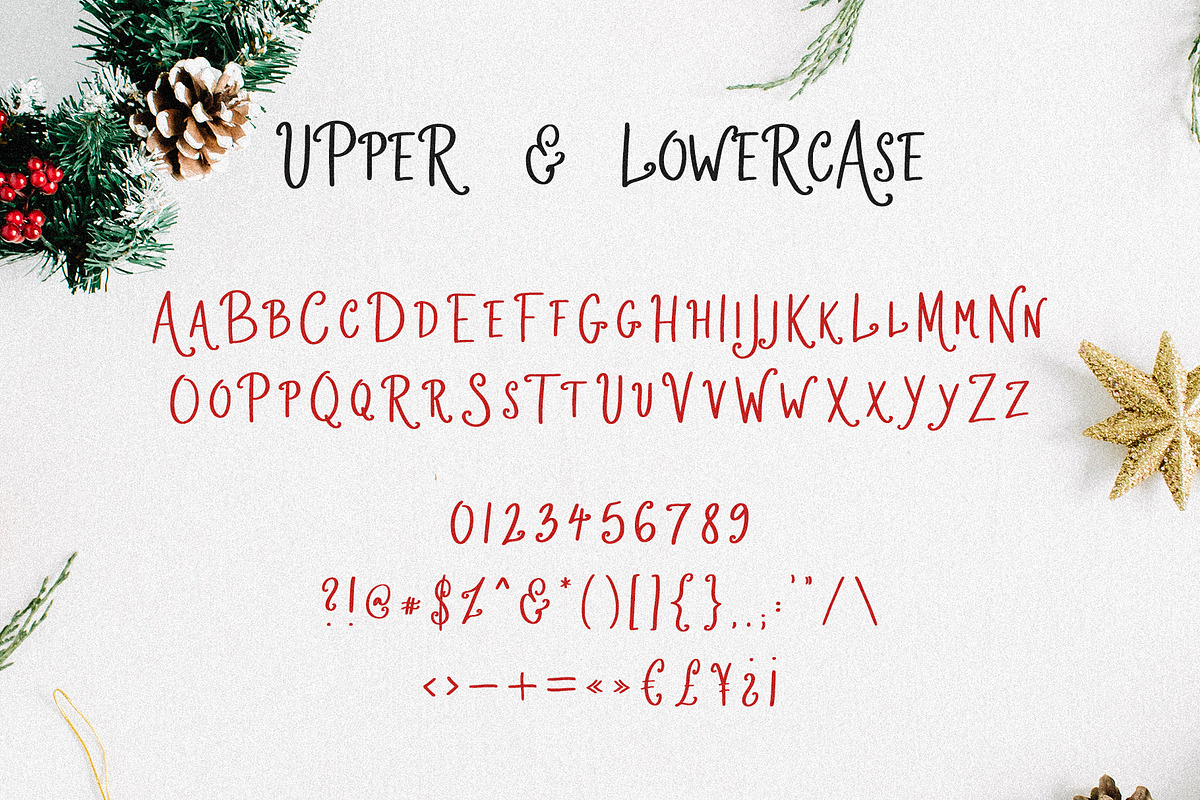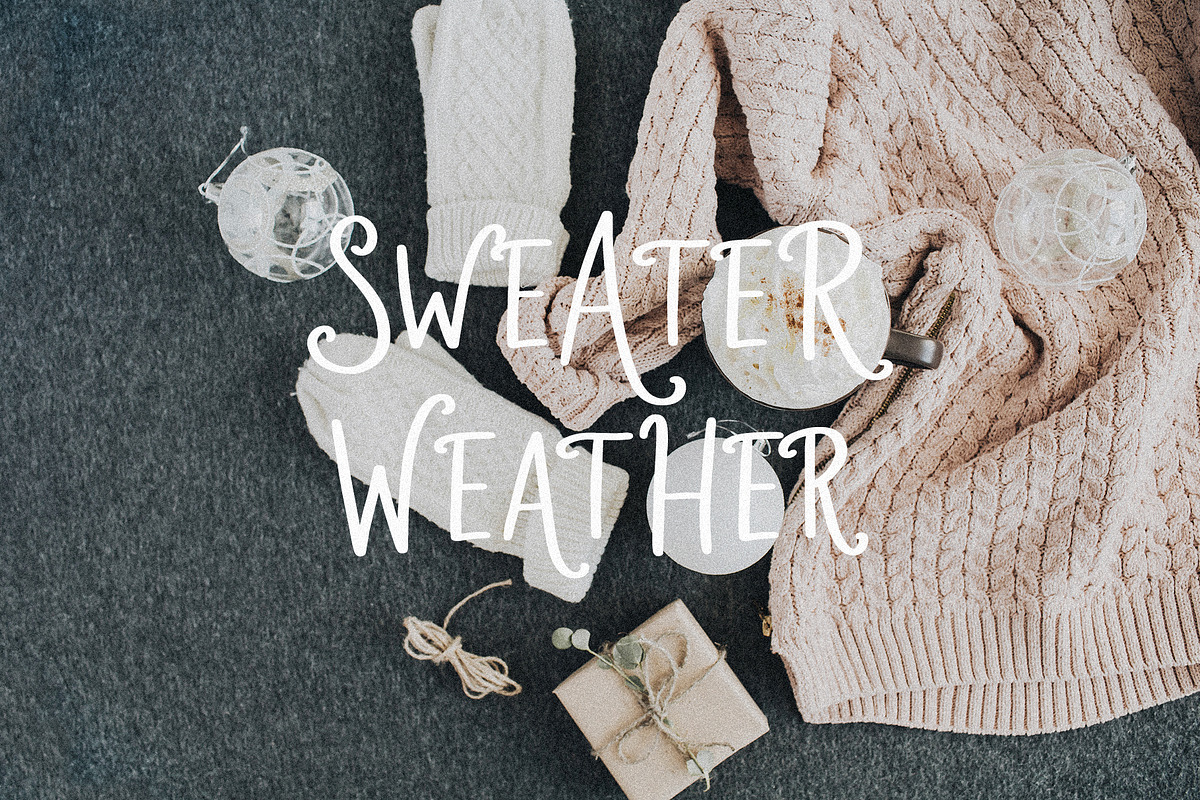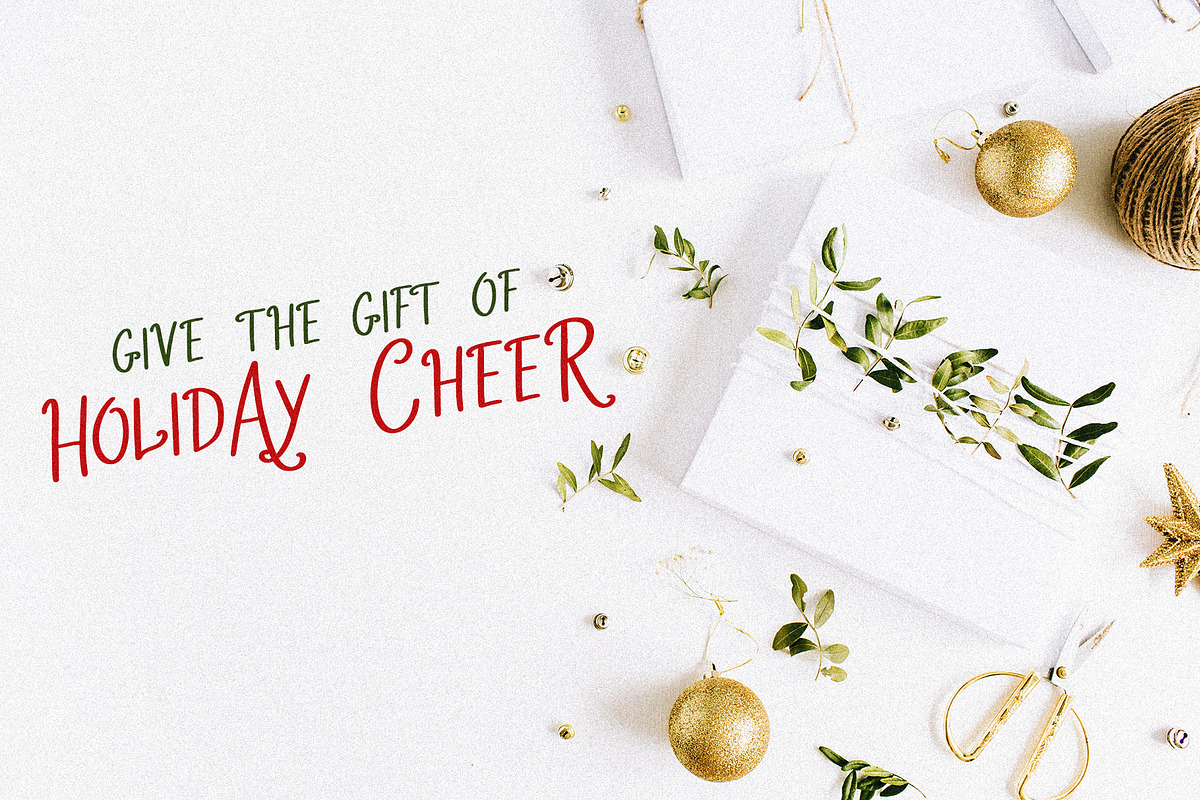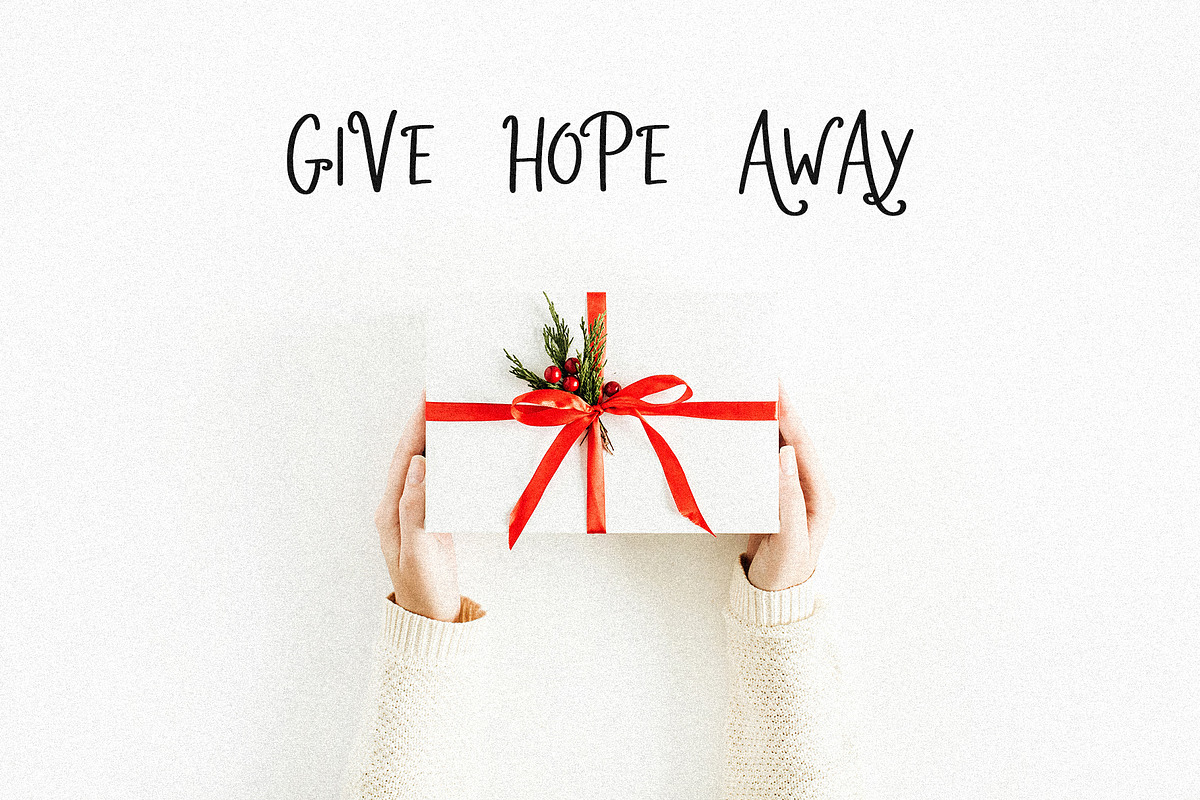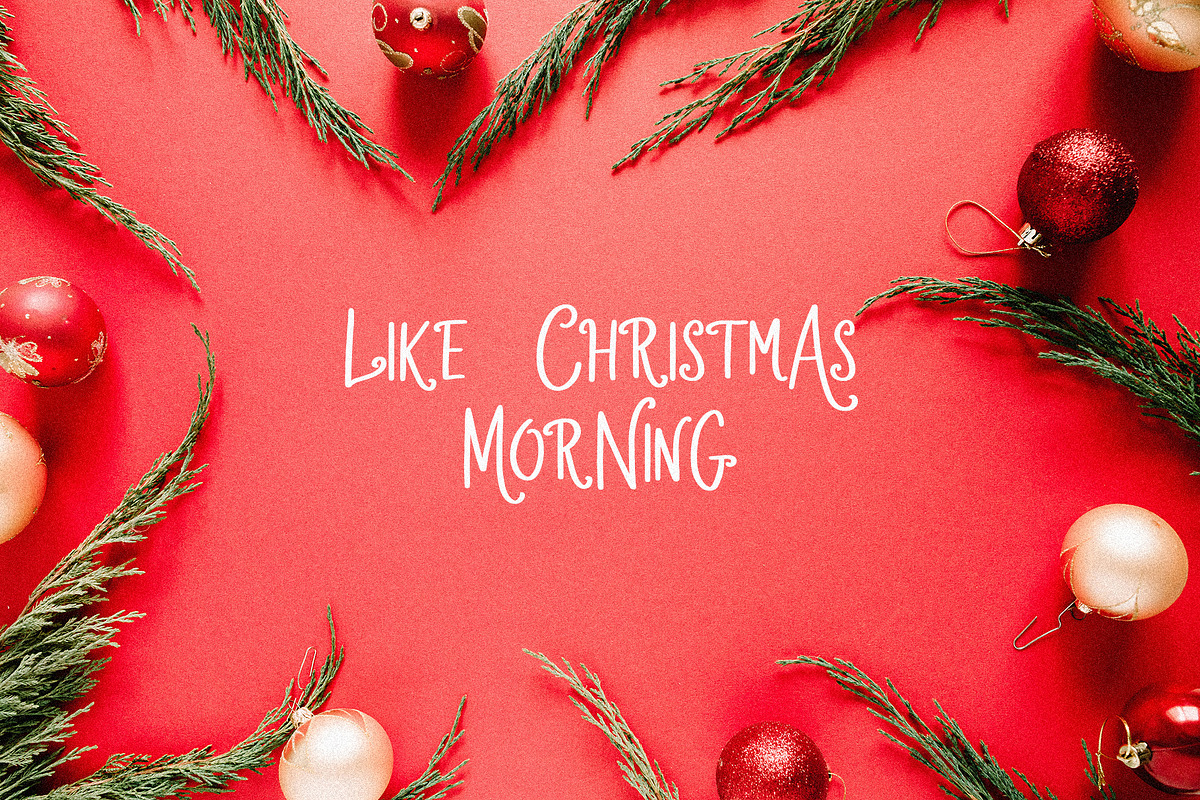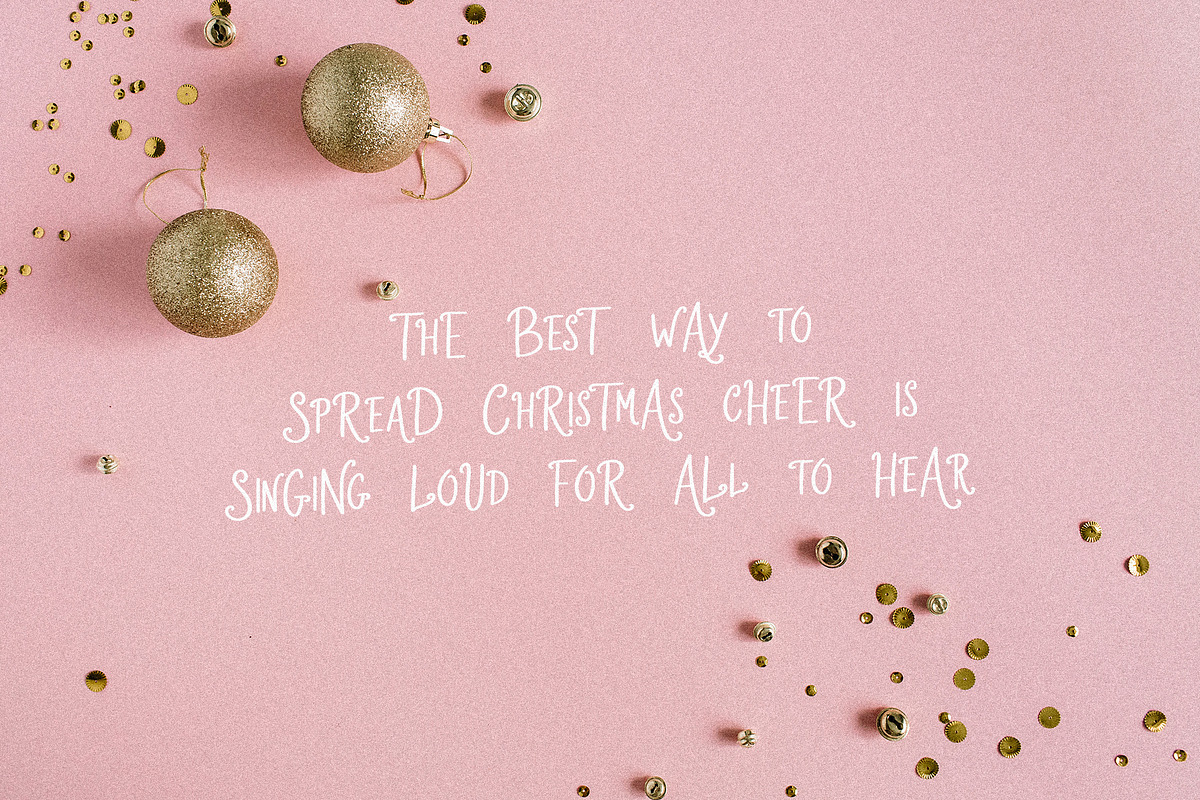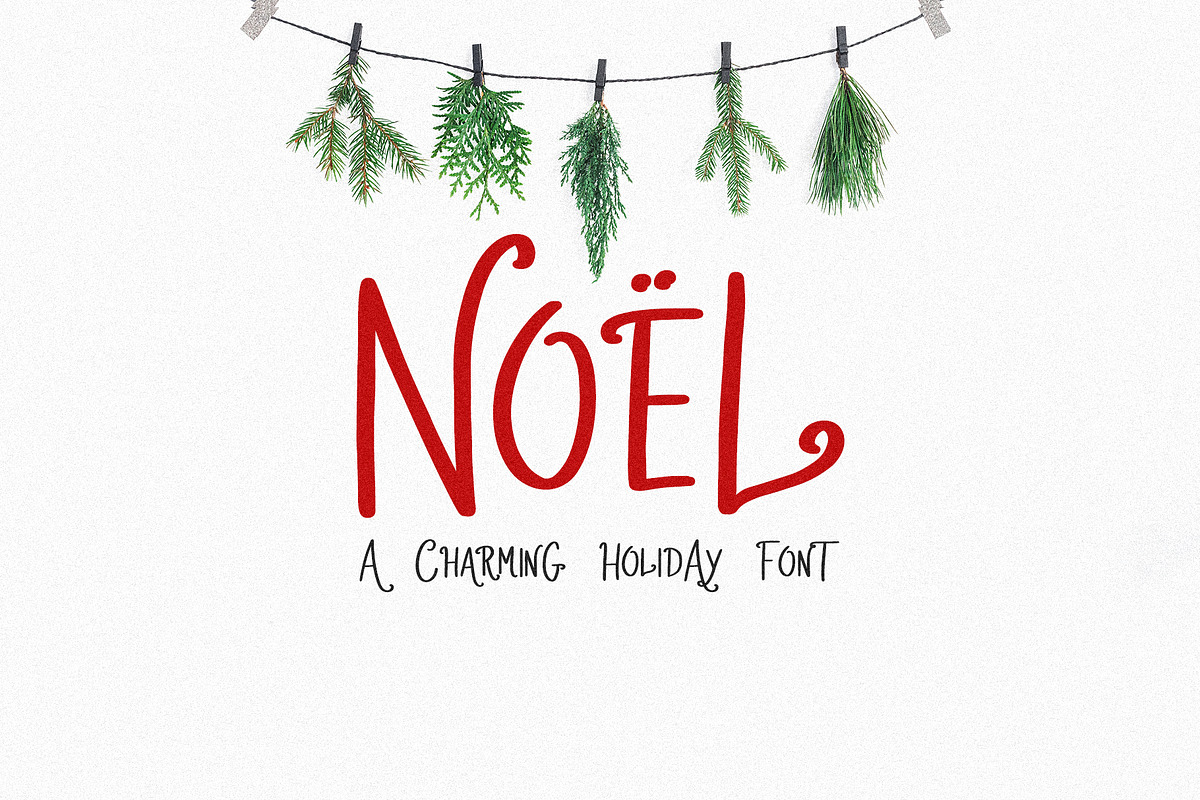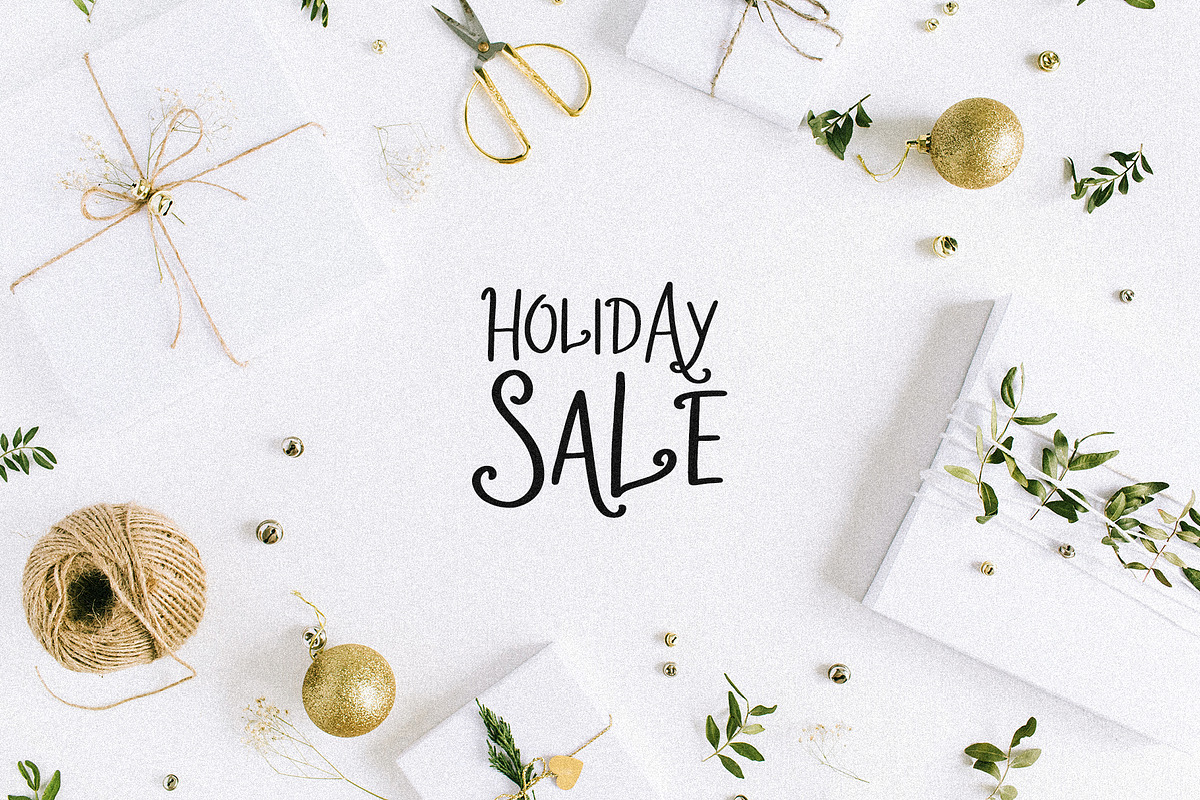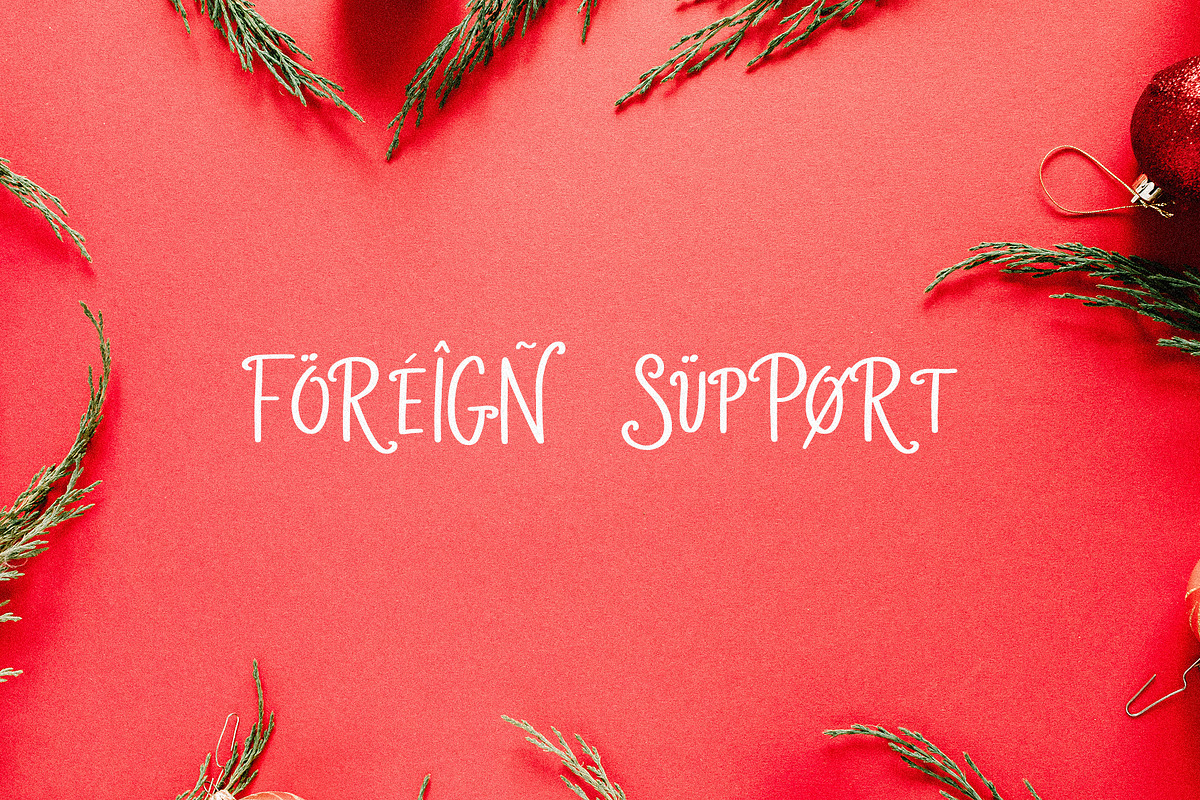
Noel | A Charming Holiday Font
Noel is a charming holiday font that works beautifully for signs, quotes, headlines, and more!
Play around with the uppercase and lowercase letters to change the look of each word. Lowercase letters function as small caps, so the mix creates a jolly bounce for each word! Test it out in the box above!
- Uppercase and small caps